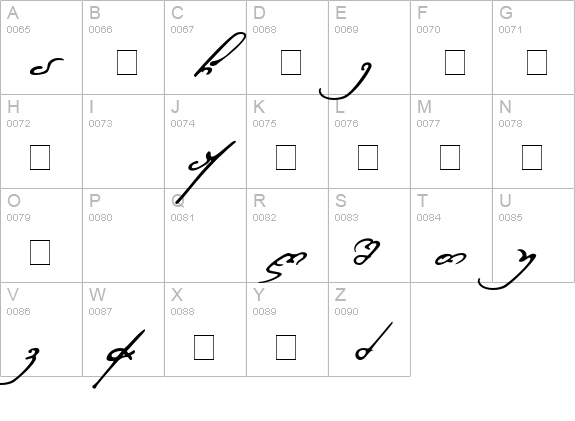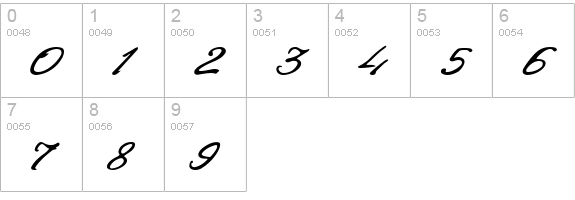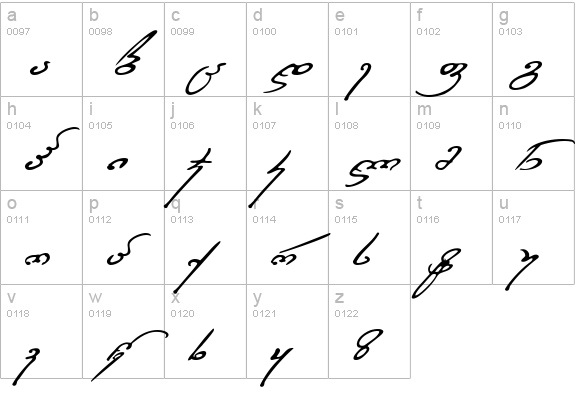
Zaza font is a stylish and modern typeface that exudes elegance and sophistication. With its sleek lines and contemporary design, Zaza font is perfect for a wide range of creative projects, from branding to advertising to social media graphics. This versatile font is sure to make your text stand out and captivate your audience. What's even better is that Zaza font is completely free to download at FontsMarket.com. That's right, you can add this stunning font to your collection without spending a dime. Whether you're a seasoned designer or just starting out, Zaza font is a must-have addition to your font library. So why wait? Download Zaza font today and take your designs to the next level.